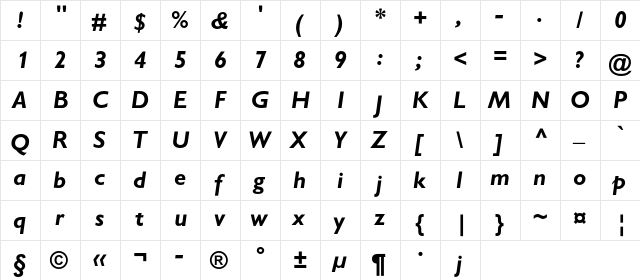
GillSansC Bold Italic
Design Context for GillSansC Typeface
GillSansC offers clean, dependable letterforms without strong stylistic allegiance, making it a practical choice for designers who need flexibility. The slanted form adds forward momentum and visual energy. The heavy weight commands attention and anchors typographic hierarchies.
Pro Tip: Try GillSansC for annotation and caption copy alongside an upright companion — the contrast in angle creates a dynamic but ordered typographic system.